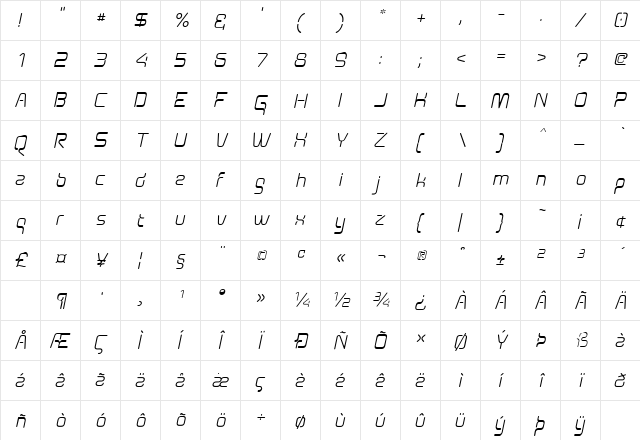
Aunchanted Oblique Regular
Design Context for Aunchanted Oblique Typeface
Aunchanted Oblique offers clean, dependable letterforms without strong stylistic allegiance, making it a practical choice for designers who need flexibility. Its italic angle brings a sense of urgency and motion to the letterforms.
Pro Tip: Use Aunchanted Oblique for emphasis, pull quotes, and subheadings where its slanted energy can add rhythm to the layout.